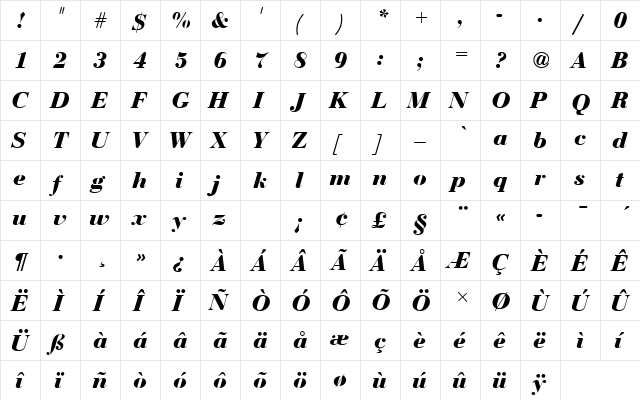
BauerBodDBolItaRo1 Regular
Design Context for BauerBodDBolItaRo1 Typeface
BauerBodDBolItaRo1 is a composed and adaptable typeface that performs quietly and consistently across a wide range of design contexts.